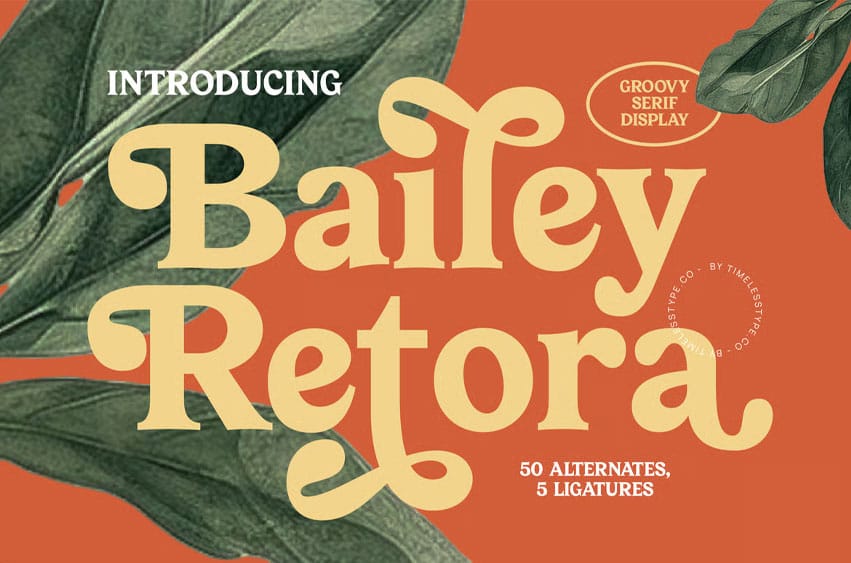
Bailey Retora Font is a groovy serif display font full of retro charm, bold curves, and playful decorative shapes. Inspired by 70s typography, flower-power aesthetics, and artistic hand-drawn lettering, this font is perfect for posters, packaging, retro branding, social media visuals, merchandise, and expressive headlines. Its warm personality and funky flare bring a joyful vintage energy to any creative project.
Featuring 50 alternates and 5 ligatures, Bailey Retora offers designers plenty of creative flexibility to craft unique titles, decorative compositions, stylized wordmarks, and bold retro layouts. With its chunky serifs, smooth loops, and unmistakable groovy character, this typeface is ideal for projects that want to feel fun, nostalgic, and full of personality.